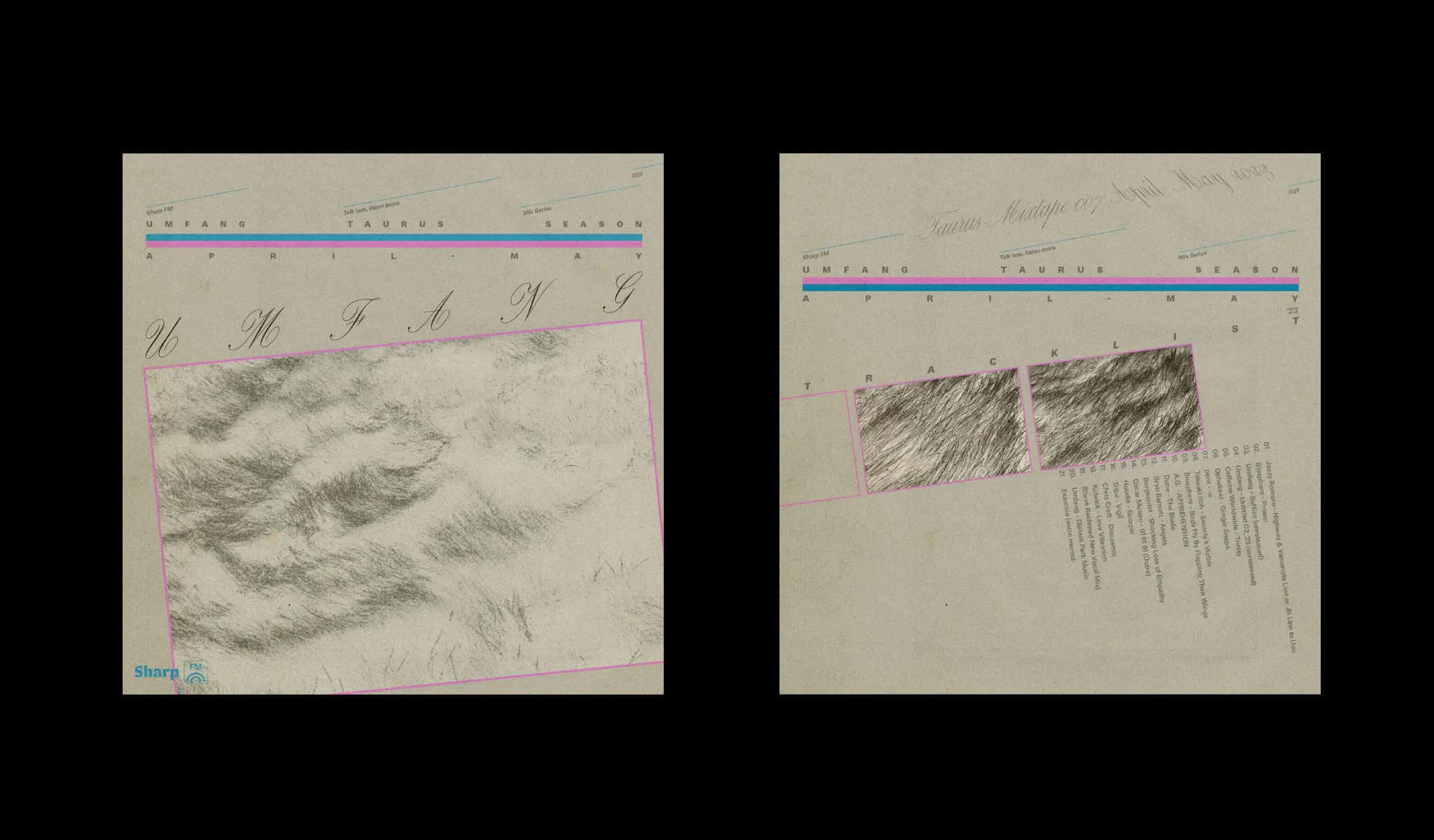
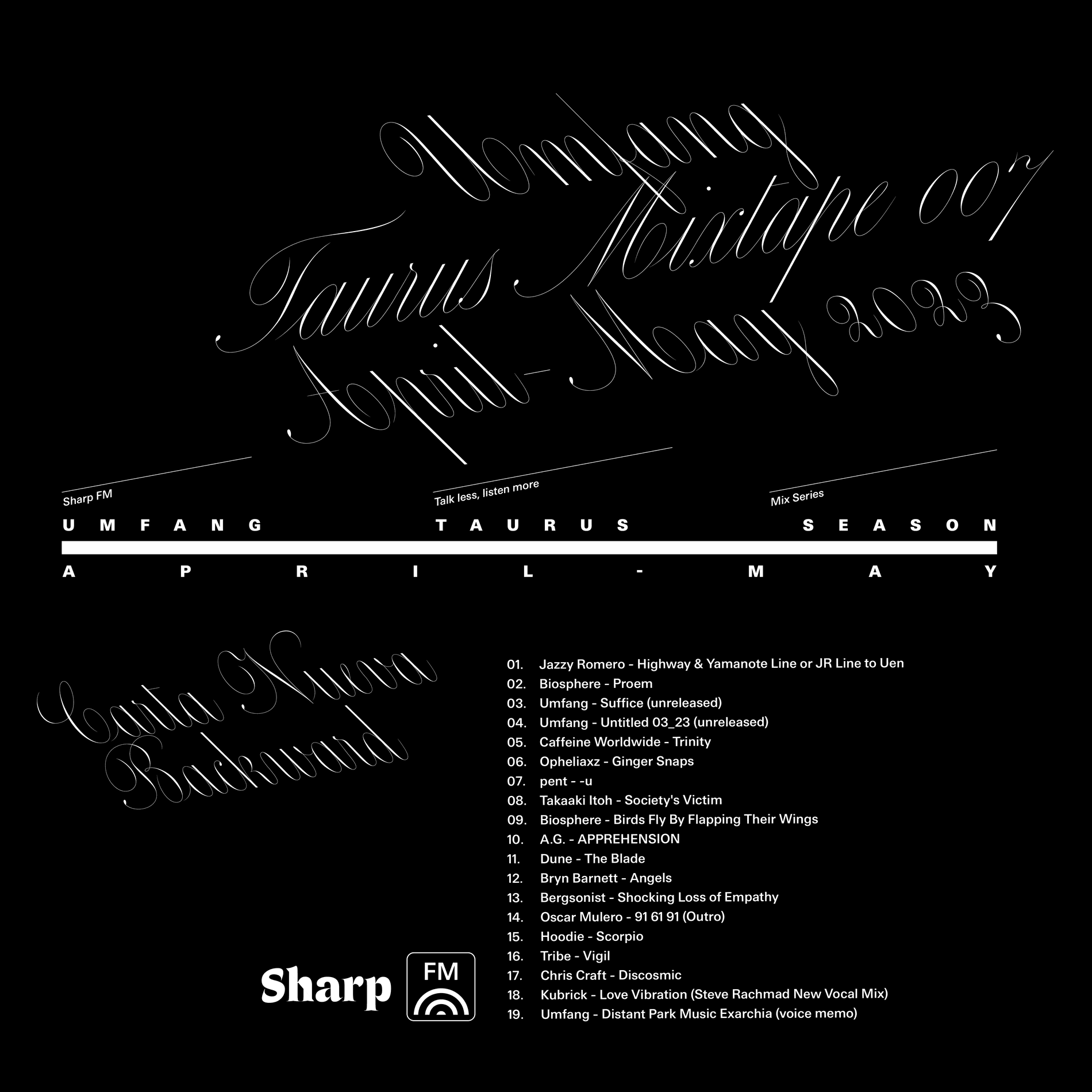
In a post-pandemic New York that has witnessed an explosion of new DJs, Emma Olson, who goes by the name Umfang, is by now a recognized veteran who is well-respected for her fluency in techno – and not just as a DJ, but also as someone engaged with its political history and contemporary social contexts. Her local all-vinyl sets move the body and mind and are proof that the true skill of the DJ isn’t necessarily what one plays, but how.
Our latest mix for Sharp FM reveals a redrawn horizon line for Brooklyn's finest. It's a blissed-out gradient -- the meeting of her inimitable club sound with her own calming productions plus an array of textural surprises in-between. This new direction is communicated visually by the use of Carta Nueva and Carta Nueva Backward on the cover and tracklist. My-Lan Thuong's spritely script-face takes another virtuosic turn, expanding its potential with a full back slant that appears so matter-of-factly that it belies its technical witchery.
The music that Umfang makes is often described in contrast to the music she DJs, but the Venn diagram here is less about surface area and more about depth. An expansive psychedelic quality permeates both, and while her own compositions are largely unmoored from any persistent rhythm, the unmistakable human touch that is easily lost in electronic music overlaps these worlds. Perhaps most importantly, they share a fundamental spirit, too.
Umfang’s ethos has always been quietly grounded in accessibility through action — whether it means giving billing to underrepresented DJs, sourcing and recontextualizing unfashionable techno records, or using cheap readily-available gear for her productions. Her approach is refreshing in a time when so many artists unironically lean on the language of identity politics and community as scaffolding for personal distinction and social prestige.
In the sprawling world of club music, she is well-known as the co-founder of legendary DJ crew and agency Discwoman, who candidly aimed to offset representational imbalances within the music industry. Their mission dovetailed with the quality of their shows and on-the-fly business savvy, and the visibility has given Umfang the opportunity to play at some of the most revered clubs and festivals in the world, including Berghain Berlin, Contact Tokyo, Dekmantel Amsterdam, and Bossa Nova Civic Club here in New York. She is also a member of 123, a burgeoning artist collective that operates from a storied semi-secret basement club in the Brooklyn neighborhood of Bedstuy.
It’s a welcome surprise that Umfang was interested in making a mix for Sharp FM, and when we discussed the project, a kindred holistic approach was apparent. She wanted to try something new with this one: “I have been wanting to make a slower mix for a long time which is hilariously challenging for me coming from mostly playing techno. I make subdued sparse music and have had a difficult time closing the gap between soundscapes I'm drawn to and the music I play in the club.”
The resulting mix is the sound of a bridge. “This is a reflection of some intentional digging for downtempo, a desire to feature the music my friends are making now that excites me, and the one-off ambient tracks from techno artists that often don't find a place in the club.” Umfang and the 123 crew have been quietly hosting monthly “Downtempo” parties, and this mix wouldn’t sound out of place there: considering these new tempos and textures, the variety here is cohesive, and it also feels intimate — the sound of an artist earnestly building out new comfort zones.